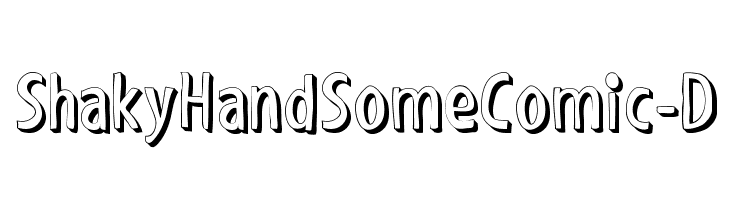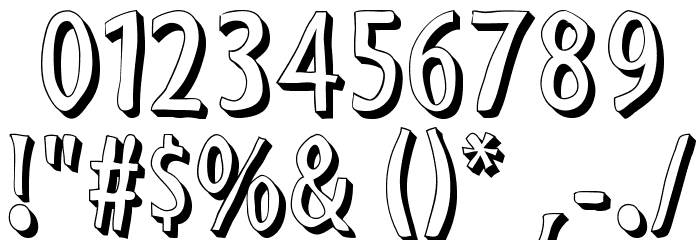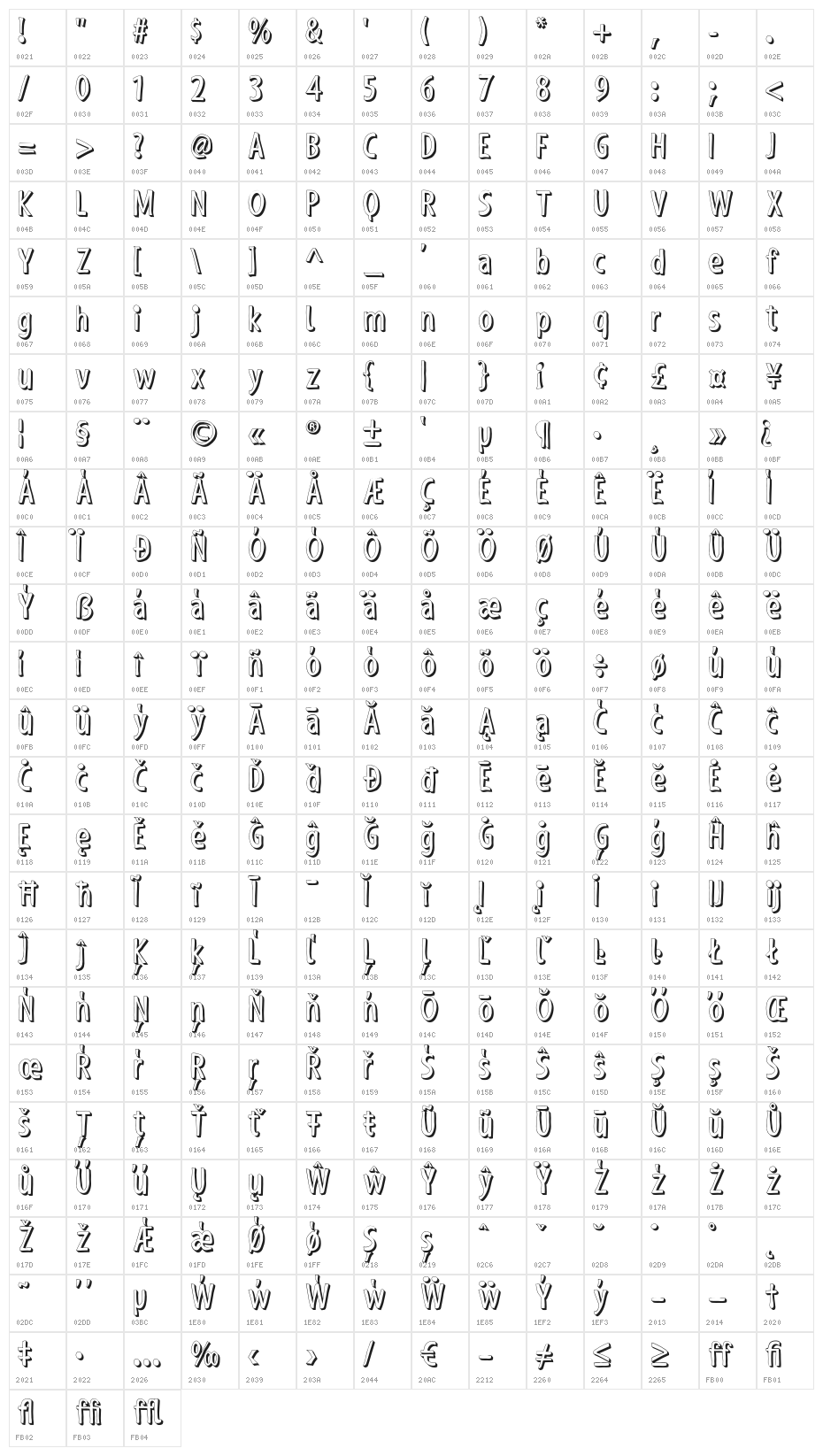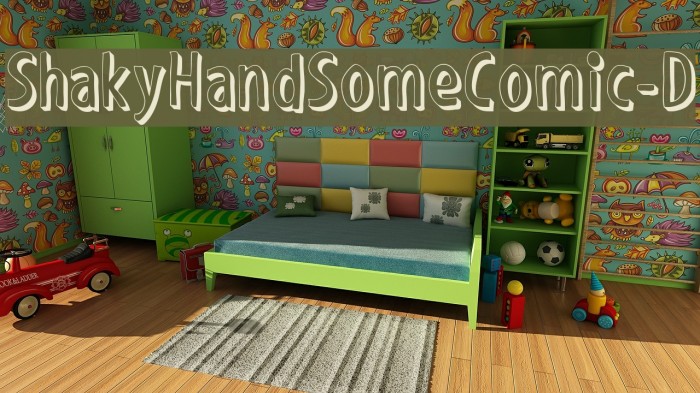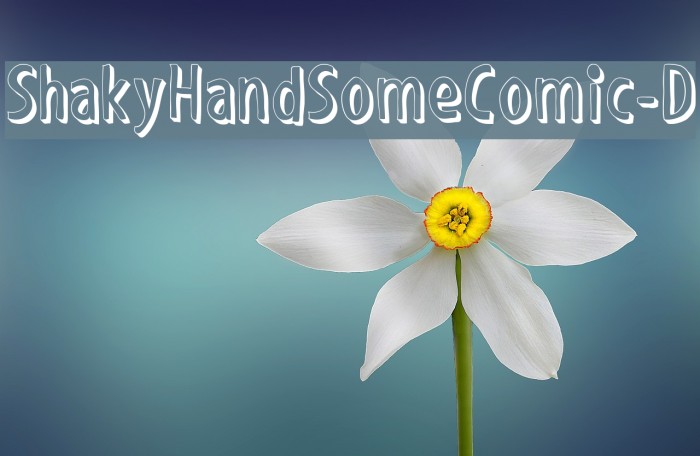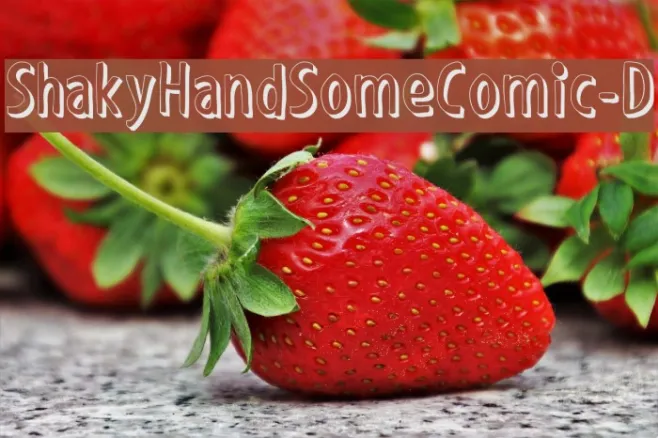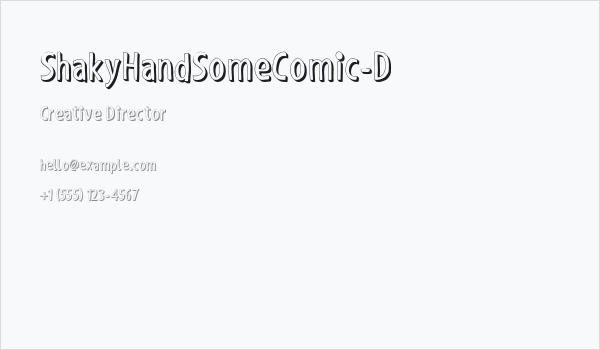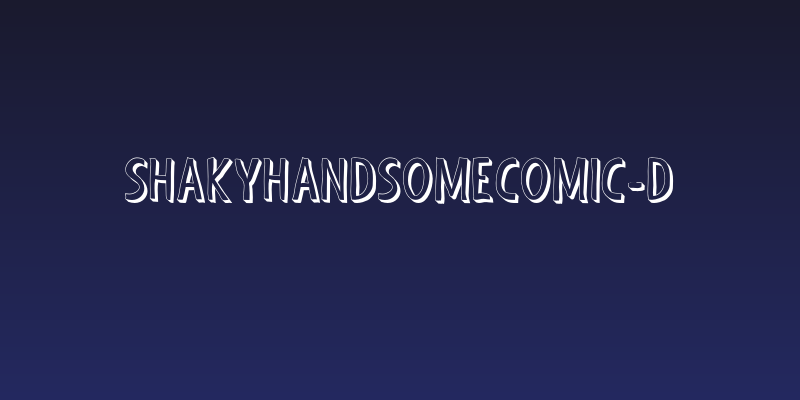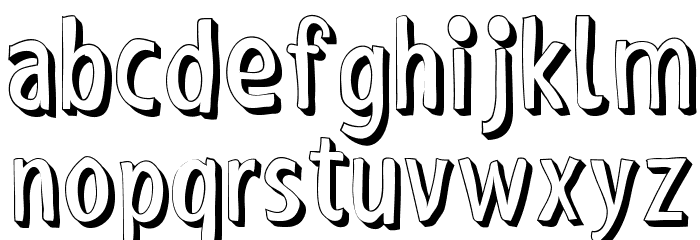
ShakyHandSomeComic-D Font
ShakyHandSomeComic-D Description
This playful and whimsical font features a hand-drawn, comic style with a slightly shaky appearance, giving it a casual and informal vibe. The characters are bold and outlined, with a unique shadow effect that adds depth and dimension. The uppercase and lowercase letters maintain a consistent style, with rounded edges and a slightly uneven baseline, enhancing the hand-crafted look. The numerals and special characters follow the same design principles, ensuring a cohesive appearance across all glyphs. This font is perfect for projects that require a fun and approachable aesthetic.
| Overall Style | Playful, Casual, Hand-drawn |
| Proposed Projects | Ideal for comic books, children's books, playful branding, posters, and greeting cards. |